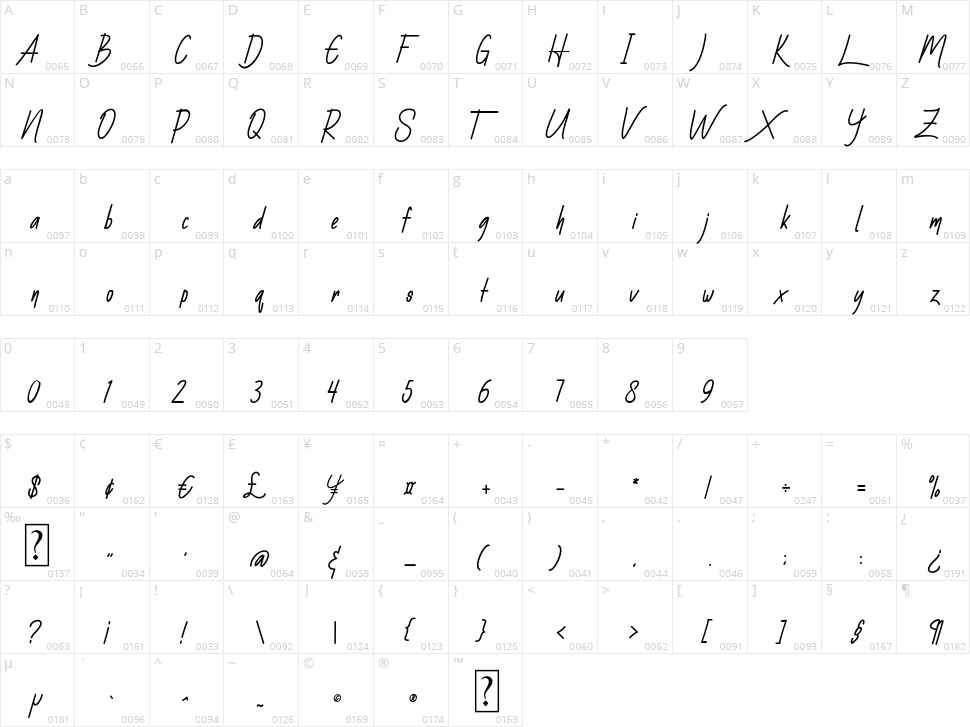
Starlight
Starlight is a unique handwritten font. Its unique flow and easy signature style makes it perfect to use for logos, signatures, quotes, badges, labels, packaging design, blog headlines invitation, stationery, wedding designs, social media posts, advertisements, product packaging, product designs, label, photography, watermark, or simply use it in your next design project.
Starlight comes with upper and lowercase Basic Characters, Numbers, Marks and Punctuation. Diacritics are also available for Western and Central European Languages.
Starlight is a cool and modern straight handwritten font.Using Starlight will definitely make your text stand out. In order to use the beautiful swashes, you need a program that supports OpenType features such as Adobe Illustrator CS, Adobe Photoshop CC, Adobe Indesign and Corel Draw.